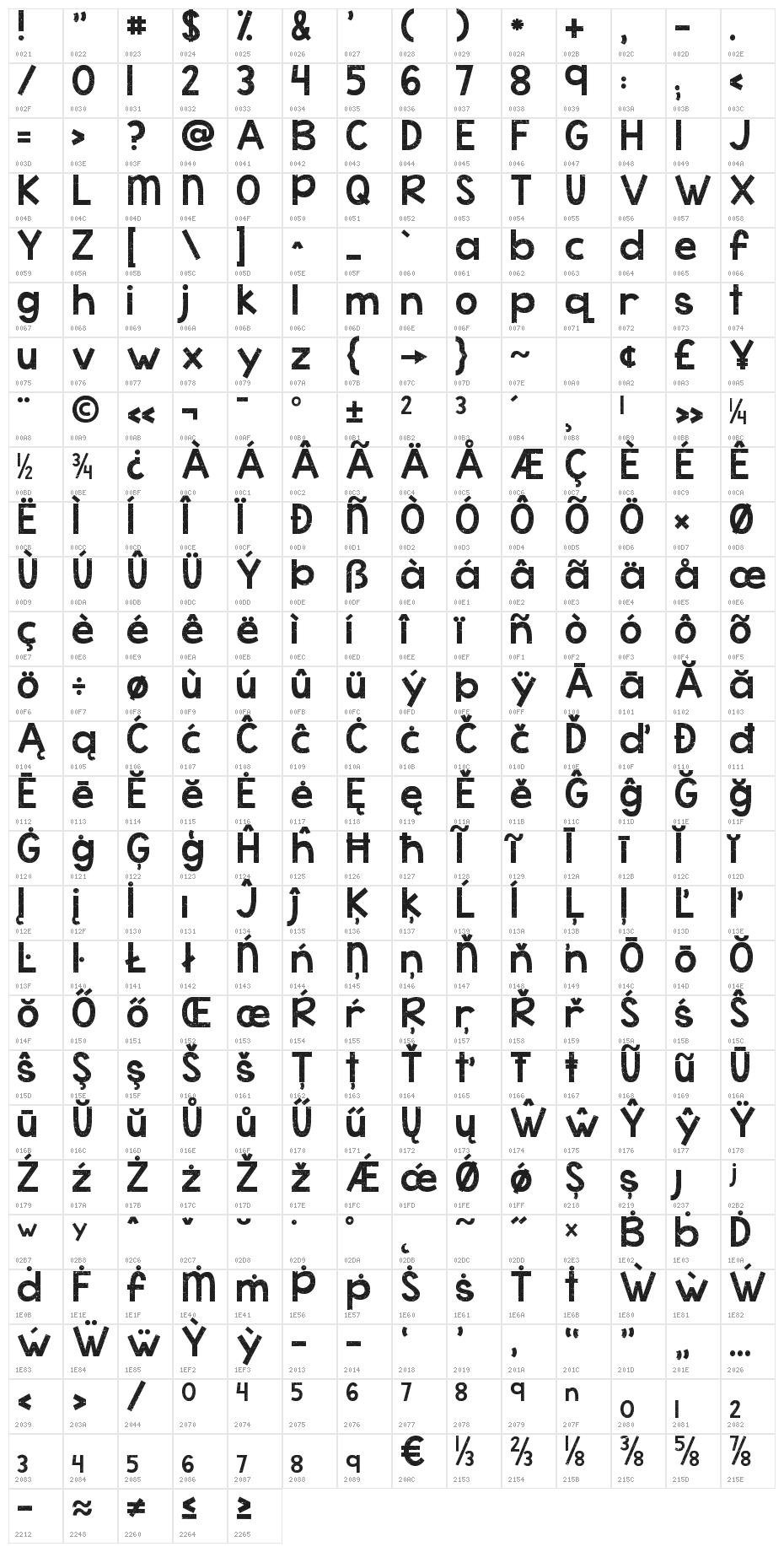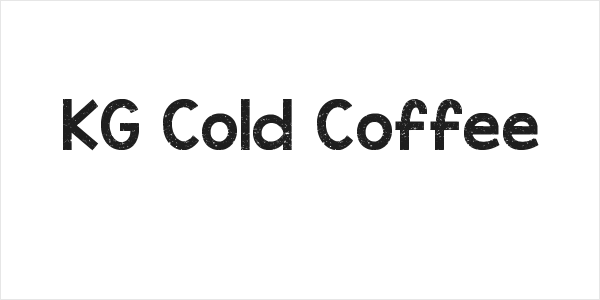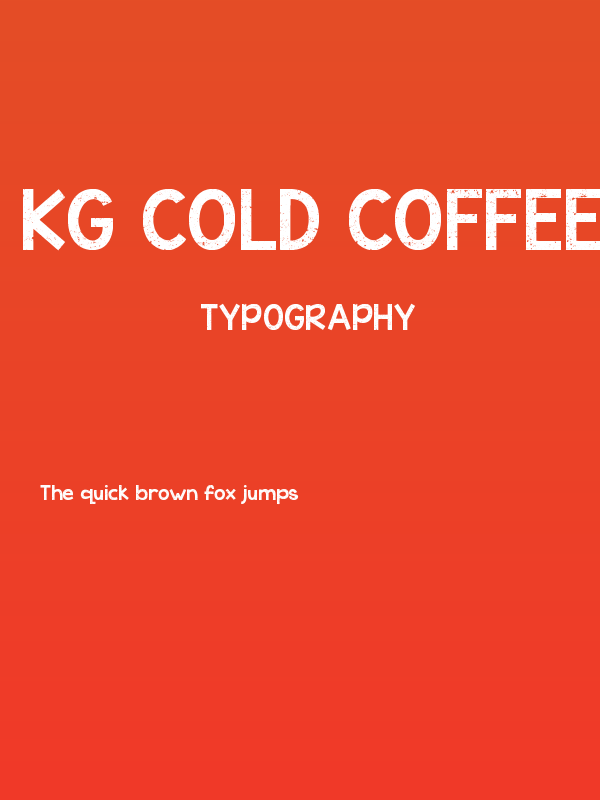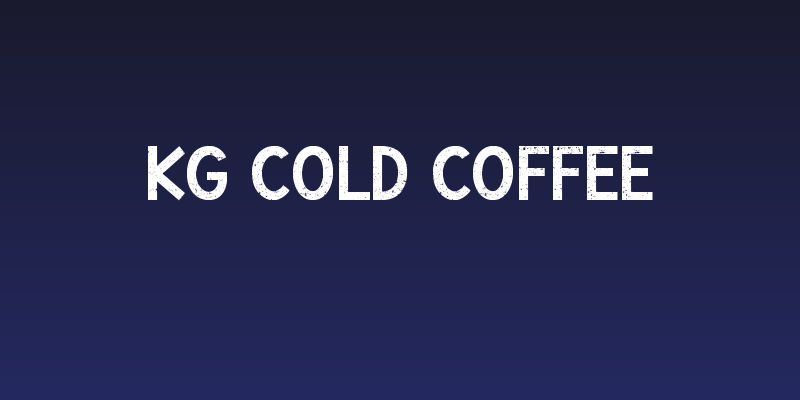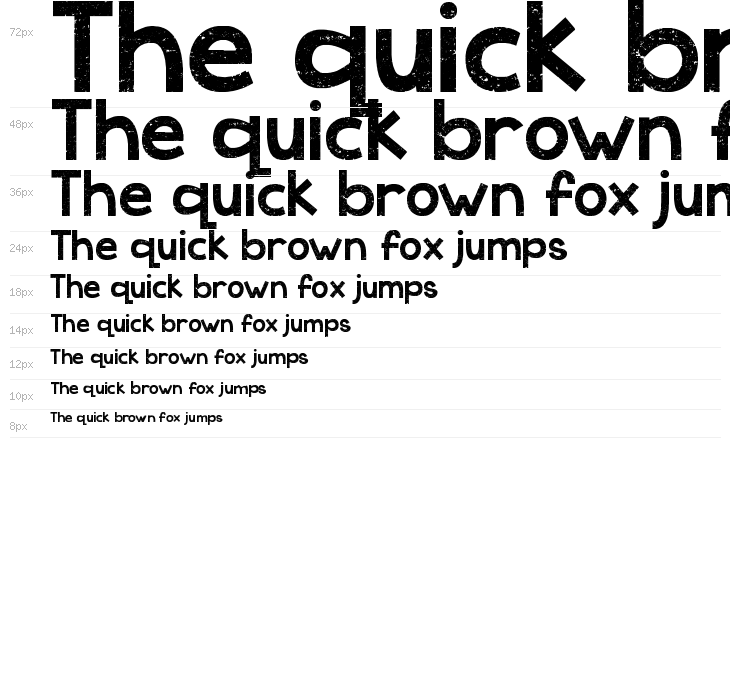
KG Cold Coffee Font
KG Cold Coffee Description
This font features a bold, playful style with a distressed texture that gives it a vintage, worn look. The characters are rounded and slightly condensed, providing a friendly and approachable feel. The uppercase and lowercase letters maintain a consistent style, with a uniform stroke width that enhances readability. The numbers and special characters are designed to match the overall aesthetic, making them suitable for various creative applications. The texture adds a unique character, making it stand out in designs that require a touch of nostalgia or a handcrafted appearance.
Proposed ProjectsIdeal for branding, posters, packaging, and any design needing a retro or handcrafted vibe.